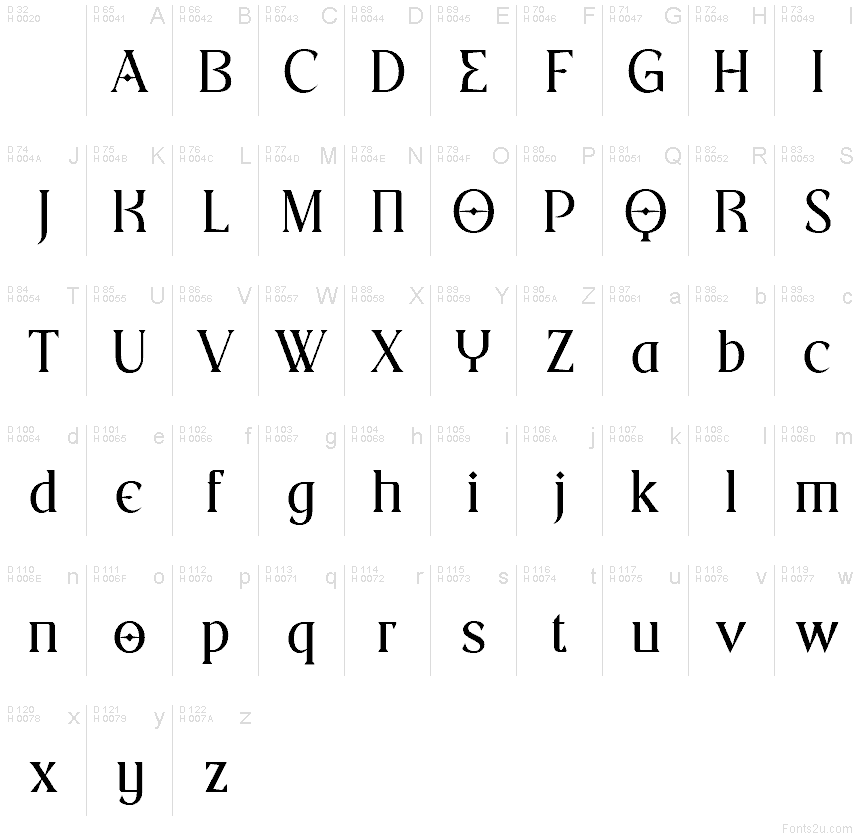
CS Apoline Regular Demo
CS Apoline font by Craft Supply Co. is a free high-contrast display serif font. It stands out with chiseled, blade-like serifs and striking geometric counters—notice the diamond punch that gives curves a crisp, faceted sparkle. The vertical stress and taut curves create a poised rhythm: refined, dramatic, and just a bit edgy. Set large, it reads like carved ink—sharp, glossy, and deliberate.
Using CS Apoline, headlines and marks gain a couture attitude without losing clarity. It shines on boutique branding, perfume or skincare packaging, editorial mastheads, wine labels, event posters, and luxury menus. This free font thrives at big sizes; pair it with a quiet, neutral sans for body copy to let those sculpted details breathe.